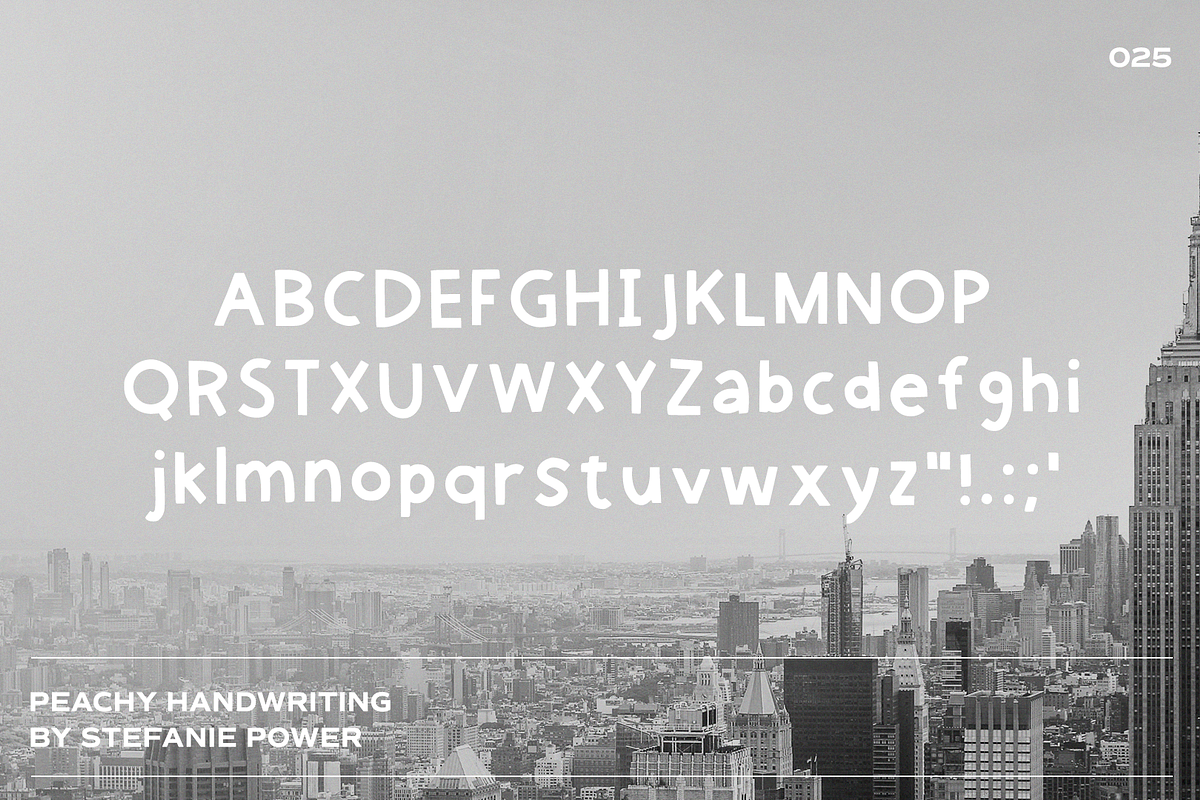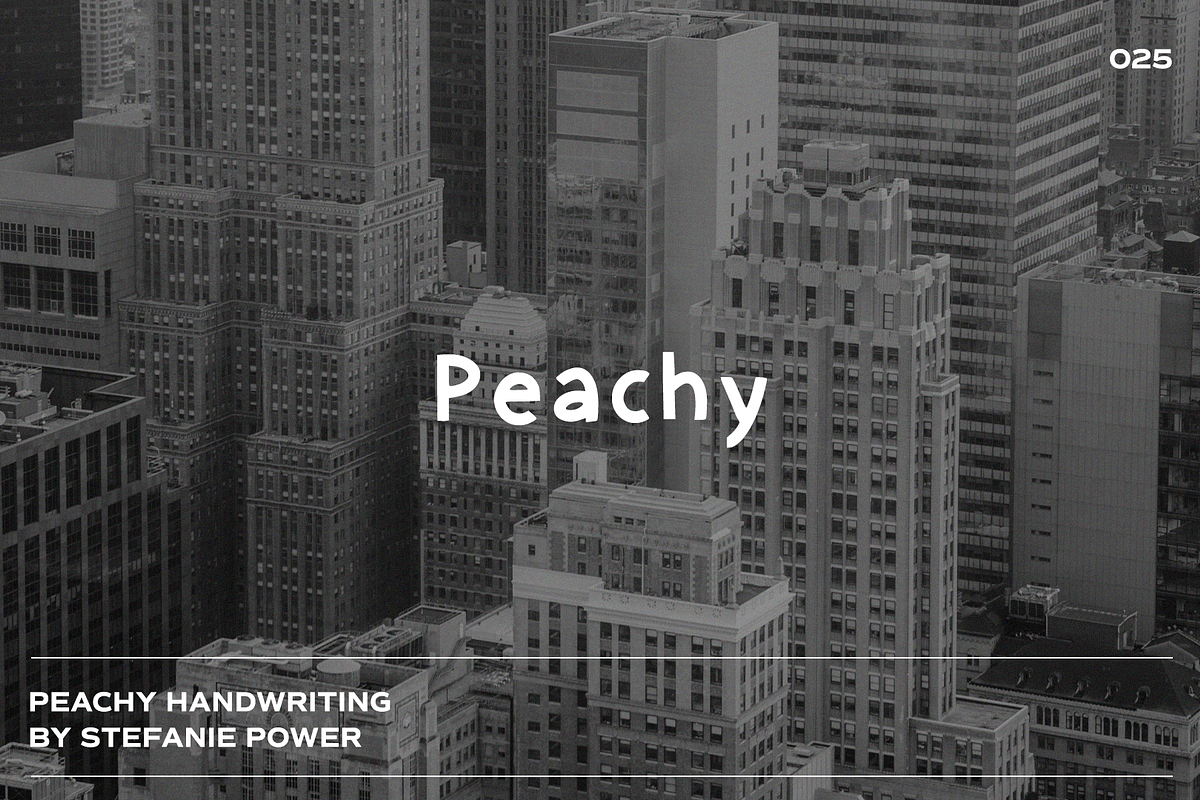
Peachy Handwriting | Font
Introducing 'Peachy' - a cute and fun font.
Peachy Handwriting • A handwritten script font containing upper & lowercase characters and a range of punctuation and numbers.